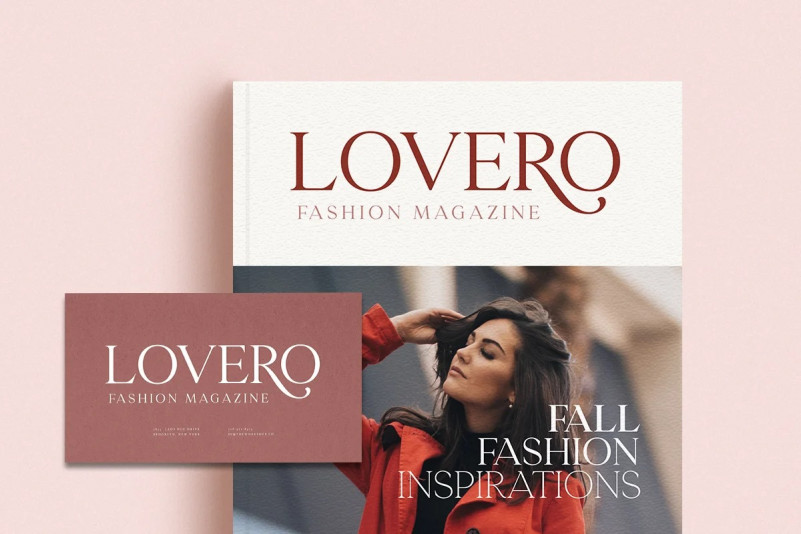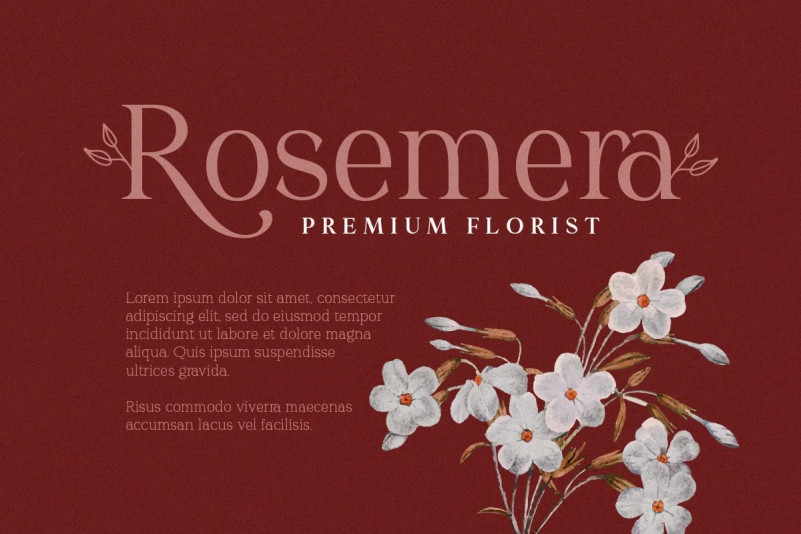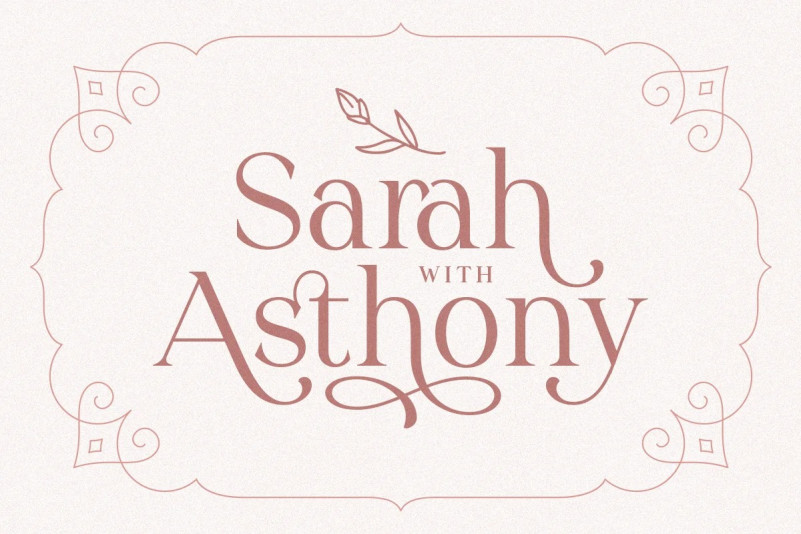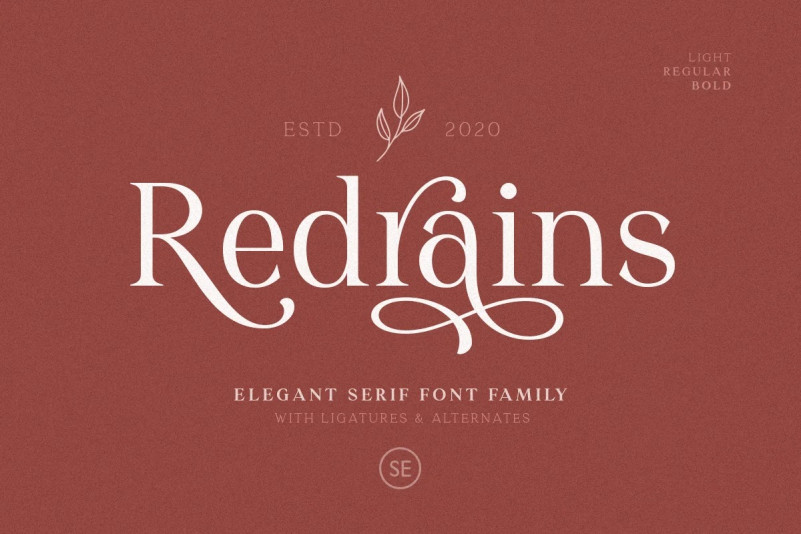
Redrains Font
Redrains Serif Font
This is a vintage modern style serif font created by Sarid Ezra with 3 weight style and a bunch of alternates for each characters and ligatures that will make your presentation or logo even more stunning and stand out! With three style that you can use for several purpose! You can use this font as a complement of your script collections or use this font as a stand alone font for several purposes such as a wedding invitations or even your own brand! This fonts support Multi Language and already PUA Encoded!